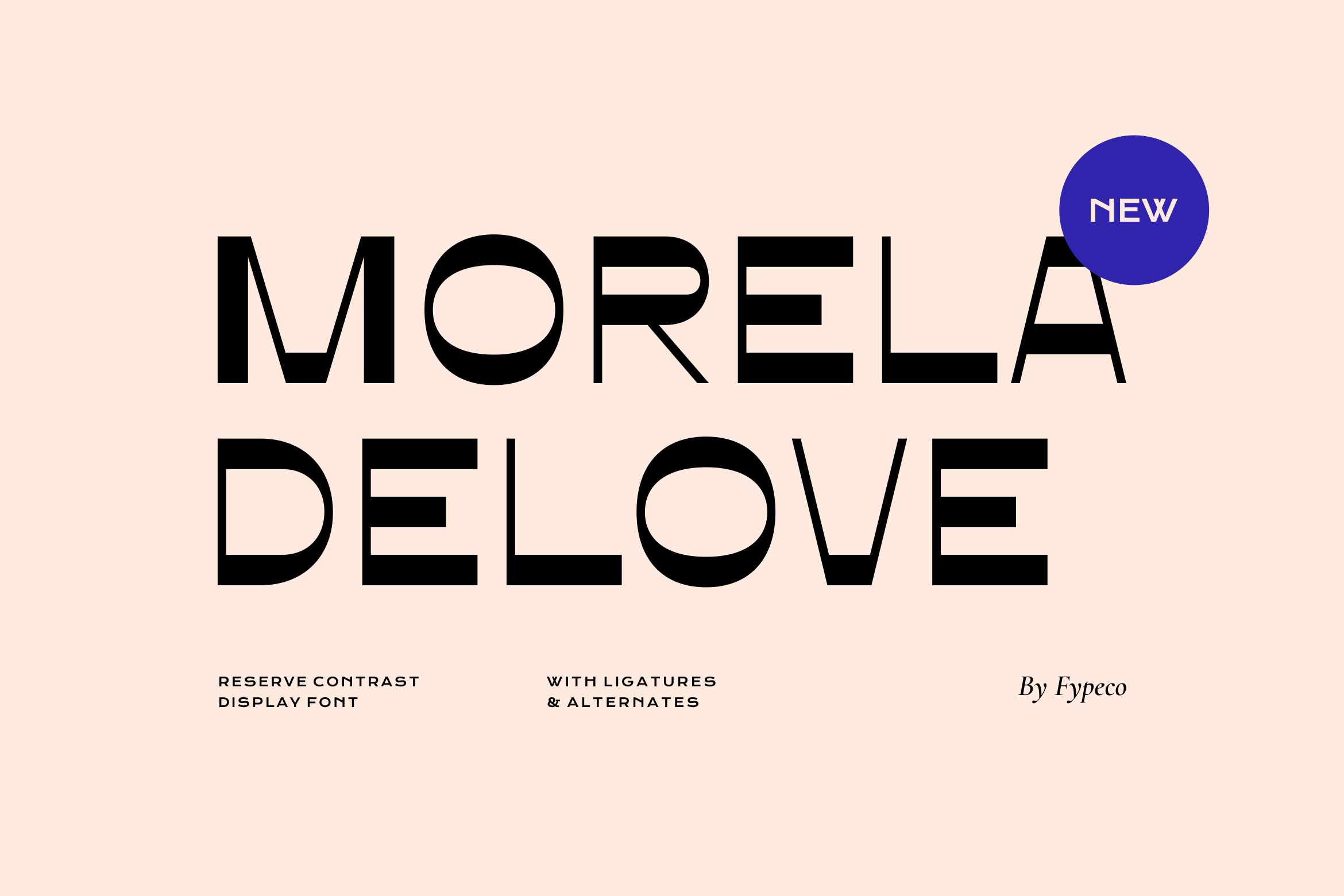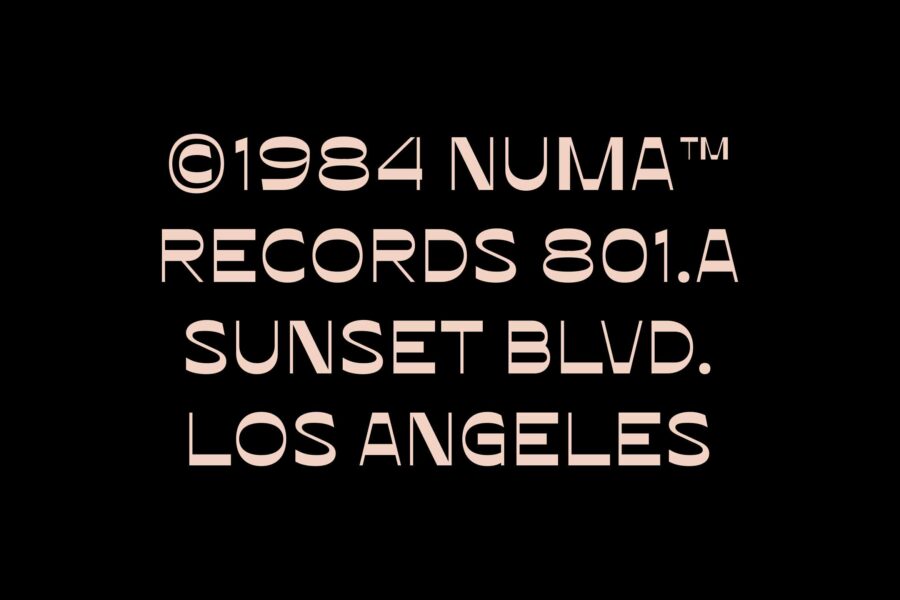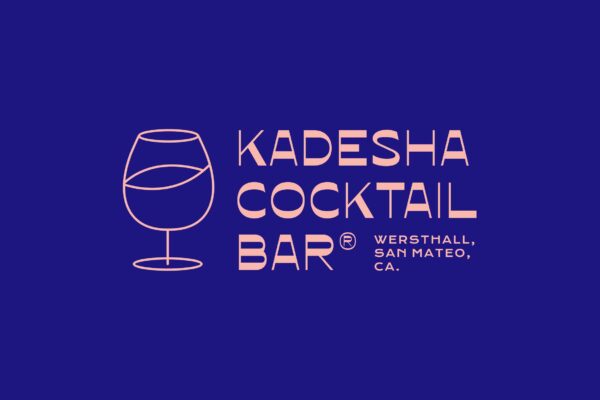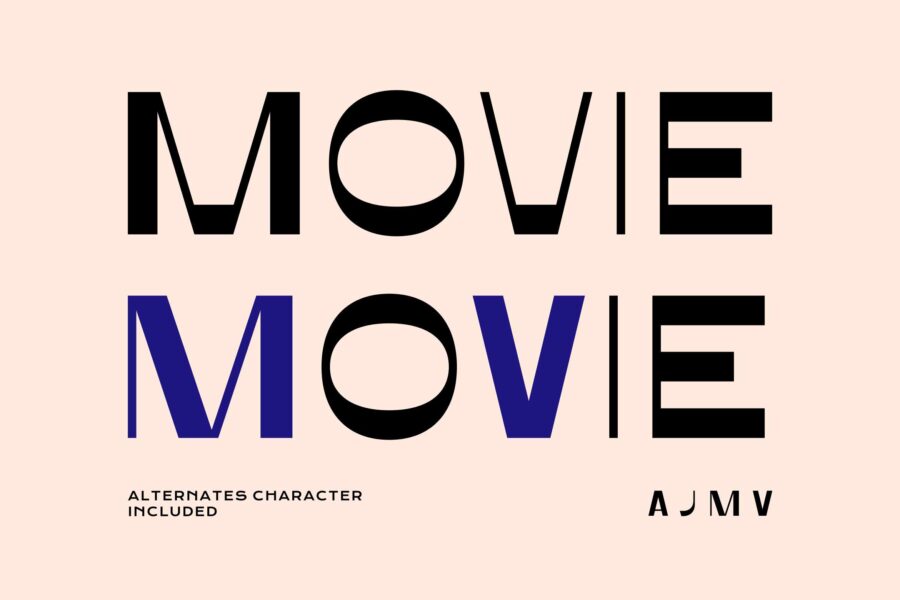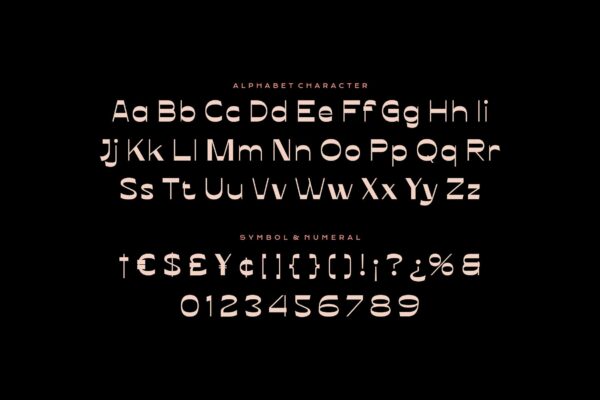
Morela Delove
This font is a modern display typeface with high contrast and geometric influence, designed to create bold and stylish statements. Its sharp cuts and unique letter alternates bring a futuristic touch while maintaining a clean and professional look. Perfect for branding, posters, packaging, editorial design, and digital media, this font combines elegance with innovation to capture attention effortlessly.
With ligatures and alternates included, it allows for versatile typography experiments and creative layouts. The balanced contrast between thick and thin strokes makes it highly distinctive, giving logos, titles, and visual identities a sophisticated edge. Whether used in fashion branding, film graphics, or contemporary design projects, this typeface offers a refined yet impactful visual presence.